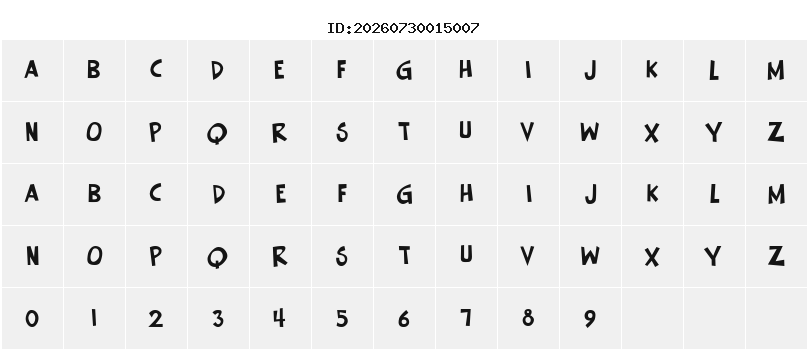
• Font Name: Keener
• Full Font Name: Keener
About Keener.ttf
Keener.ttf is a modern, elegant sans-serif font designed for ultimate readability and visual harmony. Perfect for branding, headlines, web design, and print materials.